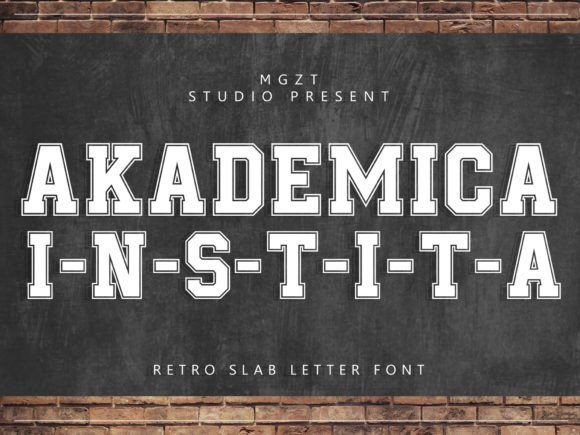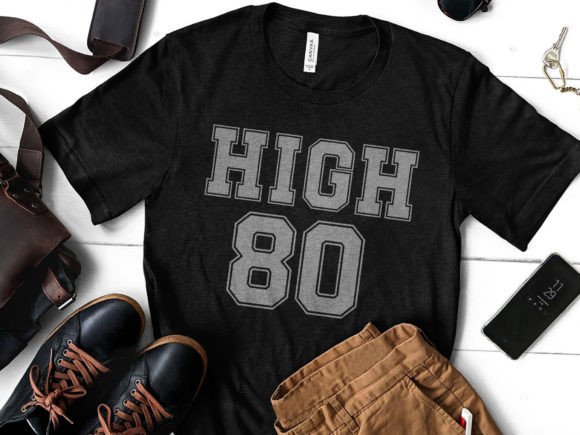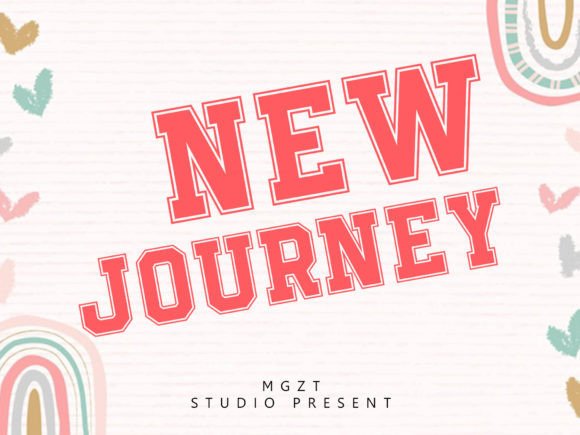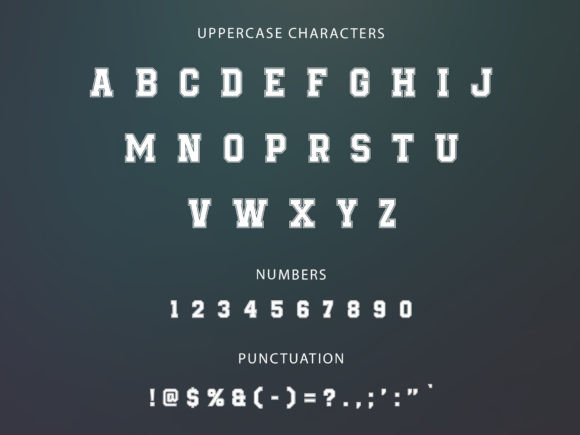
Akademica Instita Font
About the Akademica Instita Font
The wait is over! The incredible Akademica Instita Font is now available for your design toolkit. Akademica Instita font embodies the essence of scholarly pursuits and collegiate vigor, serving as a visual representation of your institute’s rich academic heritage.
The font carries a dignified yet dynamic presence, with bold lines and sharp angles that command attention while exuding a sense of tradition. Each letter is meticulously crafted to evoke the grandeur of academia, reminiscent of the timeless inscriptions found on university buildings and monuments.
Akademica Instita excels in headlines, logos, and short-form text applications such as posters or certificates where its bold presence makes a strong statement. It’s ideal for branding materials projecting authority and tradition, for example, university publications or prestigious institutions. However, its strong character and relatively large x-height make it less suitable for extended body copy or UI elements requiring high readability at smaller sizes.
Pairing it with a clean sans-serif like Open Sans or Lato for body text provides excellent contrast and readability. For a more elegant approach, consider a classic serif like Garamond or a subtly textured script font like Great Vibes for secondary text elements. These pairings balance the font’s bold personality, creating a sophisticated and accessible design.
The overall personality of Akademica Instita is confident and authoritative, yet maintains a classic and refined aesthetic. It is best suited for projects that require a strong visual presence and communicate a sense of legacy and established expertise.
Akademica Instita Font Usage Examples
Akademica Instita Font Example